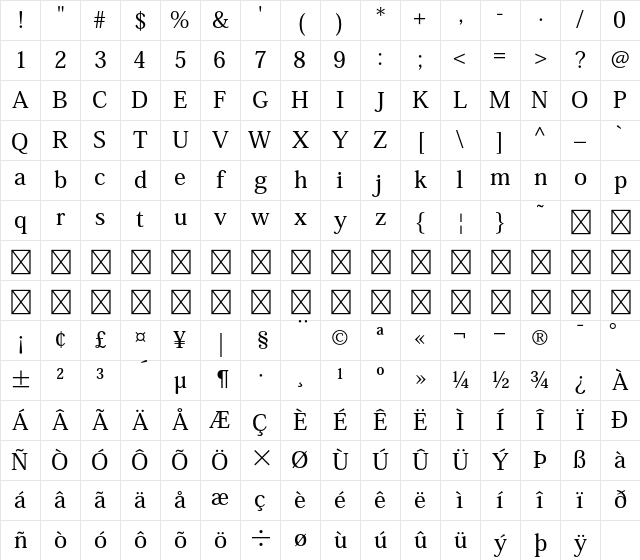
Heisei Mincho Std W5
Style: W5
Complete Heisei Mincho Std W5 glyph index. Displaying only characters natively supported by Heisei Mincho Std W5 font.
Design Context for Heisei Mincho Std
Heisei Mincho Std is a composed and adaptable typeface that performs quietly and consistently across a wide range of design contexts.